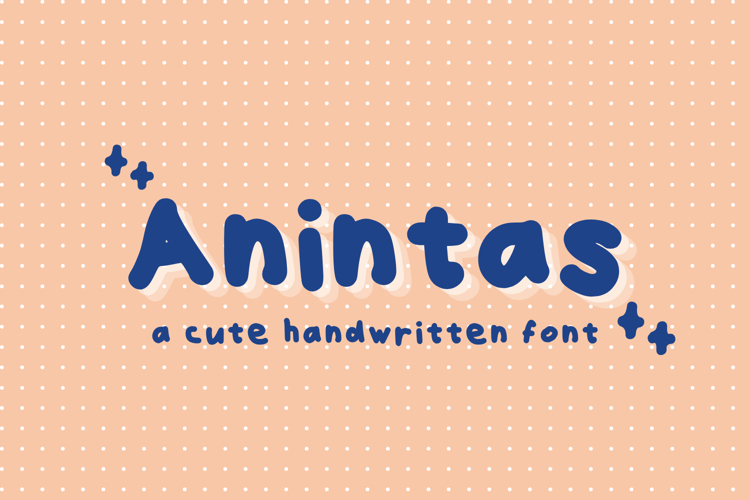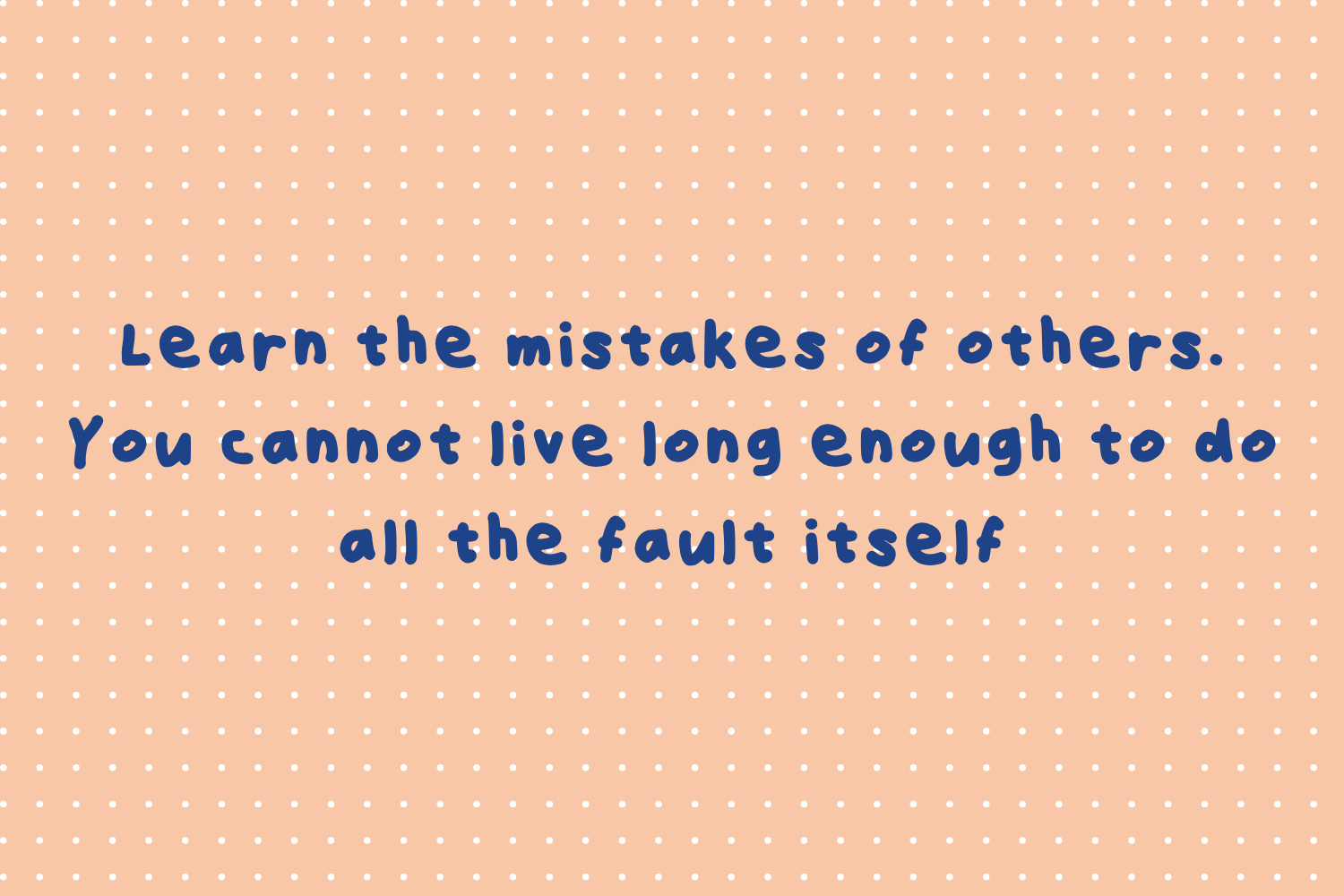
Anintas is a charming handwritten font featuring gentle strokes and a sweet, lively vibe. Inspired by everyday penmanship, it combines a cozy, welcoming aesthetic with excellent readability. Its organic flow delivers an authentic handwritten experience, making Anintas the ideal choice for journals, planners, social media content, branding, quotes, and any creative project craving an endearing, approachable touch.